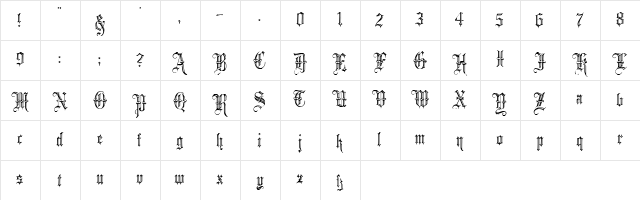
Minster No 5 Regular
| Designer | PJL |
Design Context for Minster No 5 Typeface
Minster No 5 is a composed and adaptable typeface that performs quietly and consistently across a wide range of design contexts.